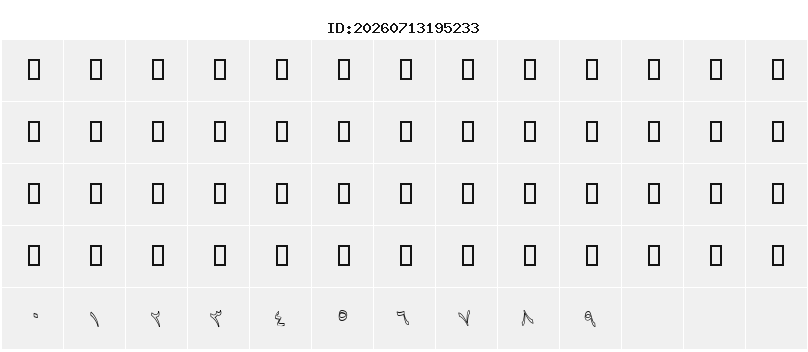
B Baran Outline Preview
• Font Name: B Baran Outline
• Font ID: Borna Baran Outline Italic
• Full Font Name: B Baran Outline Italic
About B Baran Outline.ttf
B Baran Outline.ttf is a modern, elegant sans-serif font designed for ultimate readability and visual harmony. Perfect for branding, headlines, web design, and print materials.